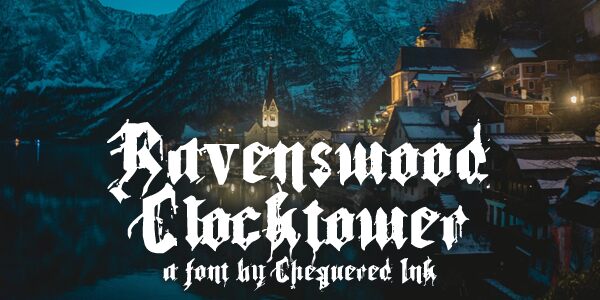
Ravenswood Clocktower
Ravenswood Clocktower, designed by Chequered Ink, is a bold and modern gothic font. With its unique eroded texture, it adds an edgy and mysterious touch to any creative project.
Perfect for album covers, movie posters, or video game titles, this semi-condensed typeface commands attention and immerses the audience in a dark and captivating atmosphere. Its distinct style captures the essence of gothic artistry while maintaining a contemporary feel.
Let Ravenswood Clocktower elevate your designs with its striking presence and captivating charm.